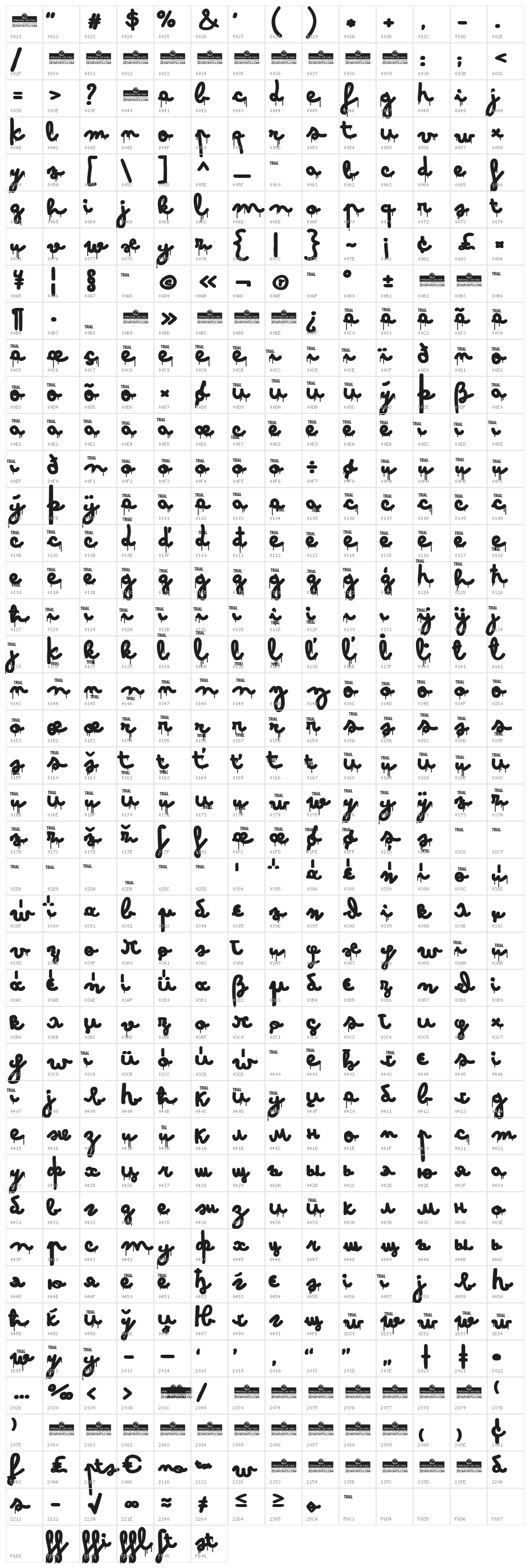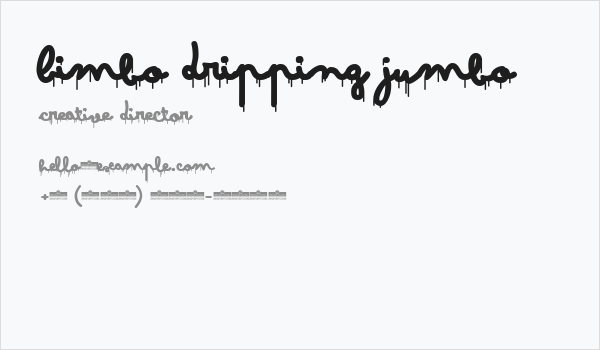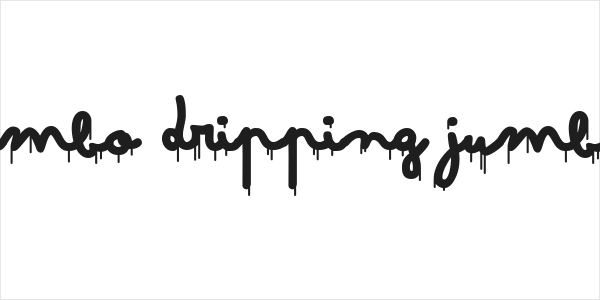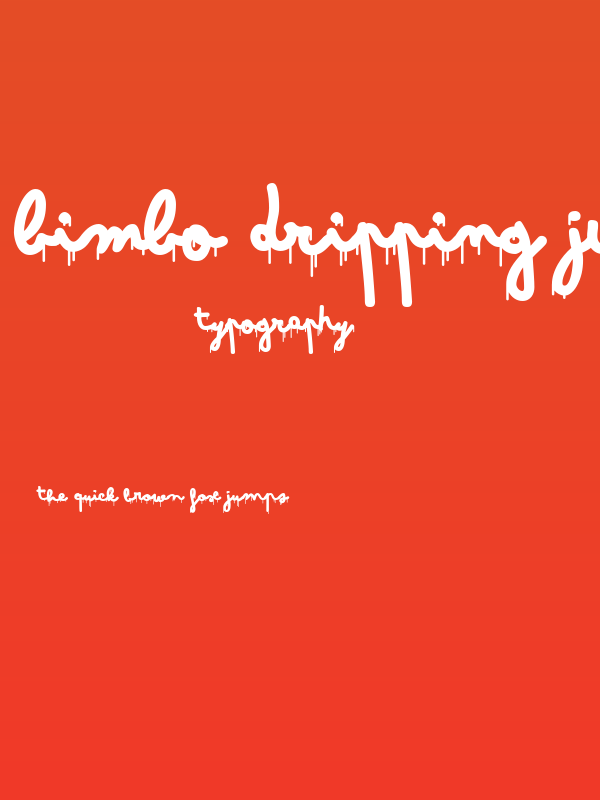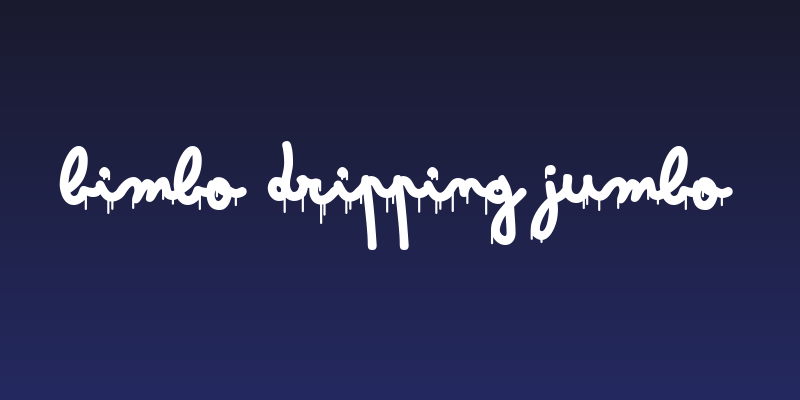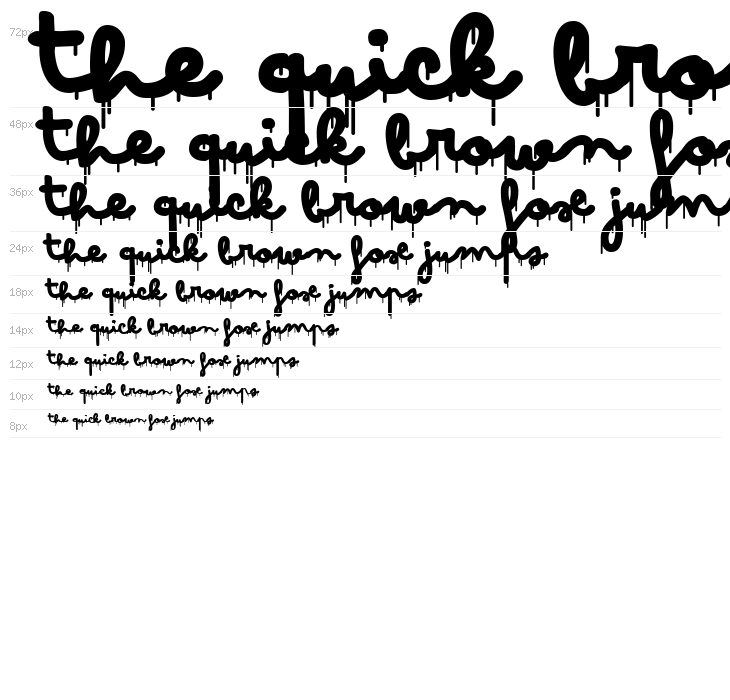
Bimbo Dripping Jumbo Font
Bimbo Dripping Jumbo Description
This font features a unique and eye-catching design with a dripping effect that gives it a playful and artistic appearance. The letters are connected in a cursive style, creating a fluid and dynamic look. The dripping effect adds a sense of movement and creativity, making it ideal for projects that require a bold and unconventional aesthetic. The font maintains a consistent stroke width, contributing to its cohesive and harmonious appearance. Its distinctive style makes it suitable for creative projects, branding, and artistic designs.
| Use Case | Logos, Posters, Creative Branding |
| Proposed Projects | Ideal for artistic branding, creative posters, album covers, and unique logo designs. |